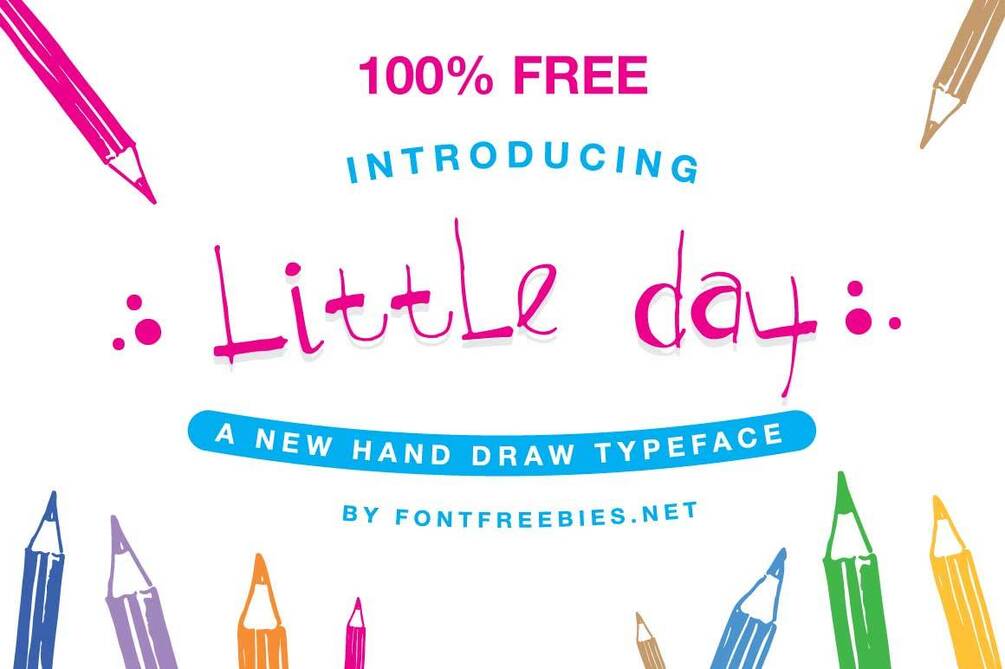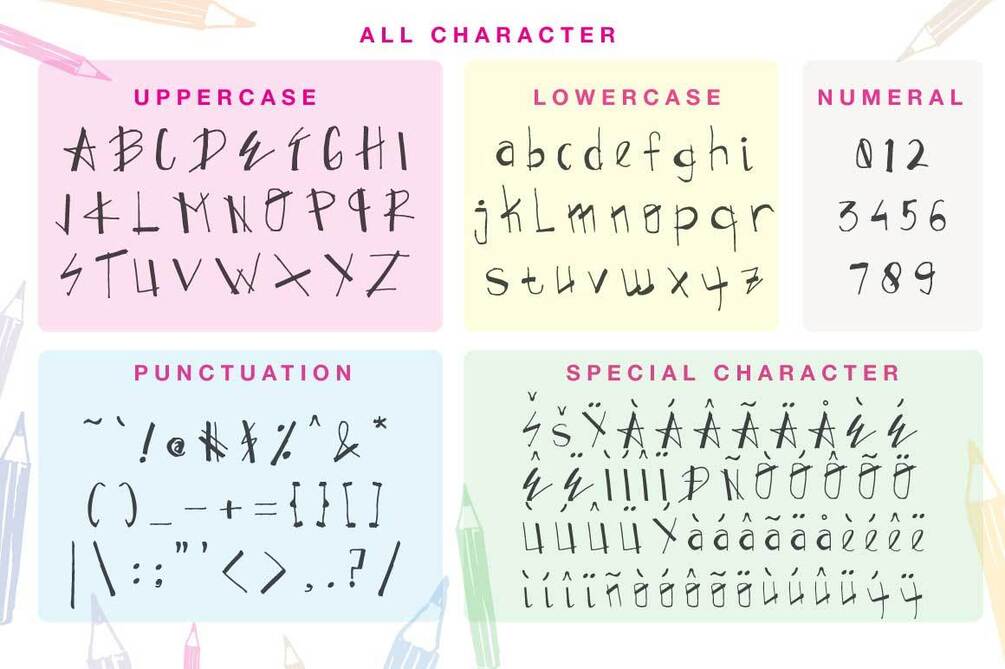
Free Font Little Day Typeface
A new hand drawn style typeface, we call it with name Little Day Typeface. Little Day Typeface is a very unique, cool and simple handmade font. It’s hand look style makes it perfect for use in all your kids design projects. This font will be it for logos, signatures, labels, packaging design, blog headlines and more.